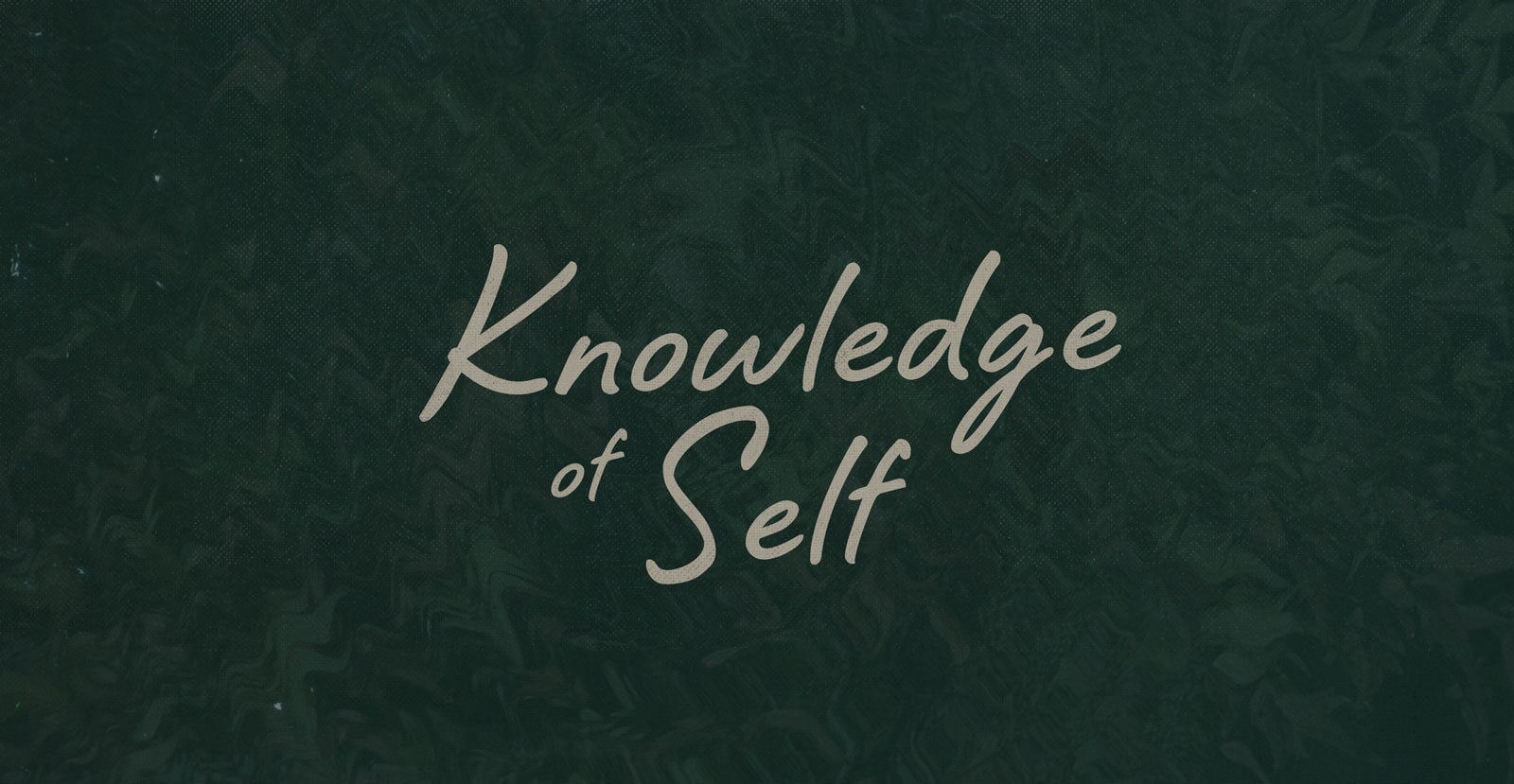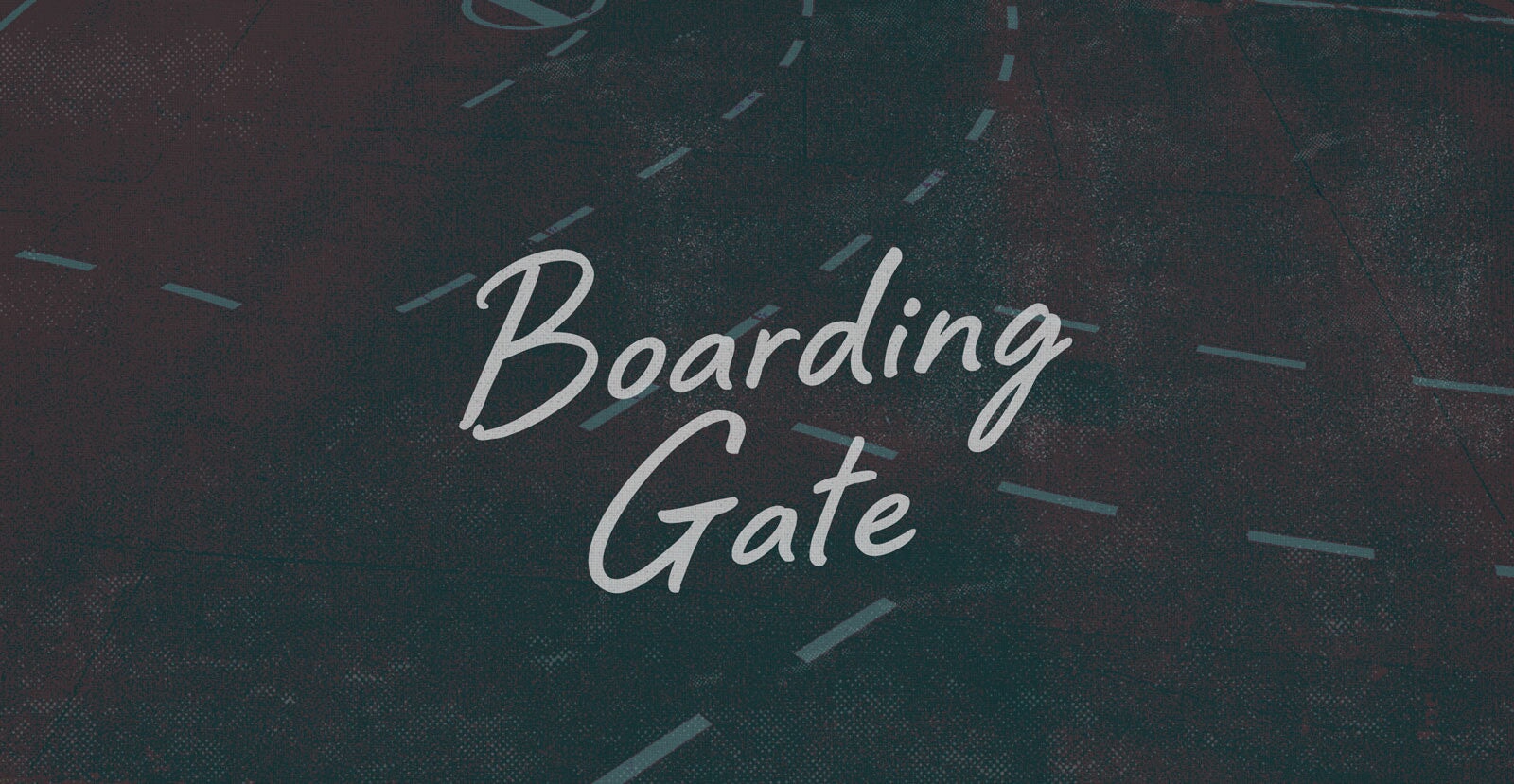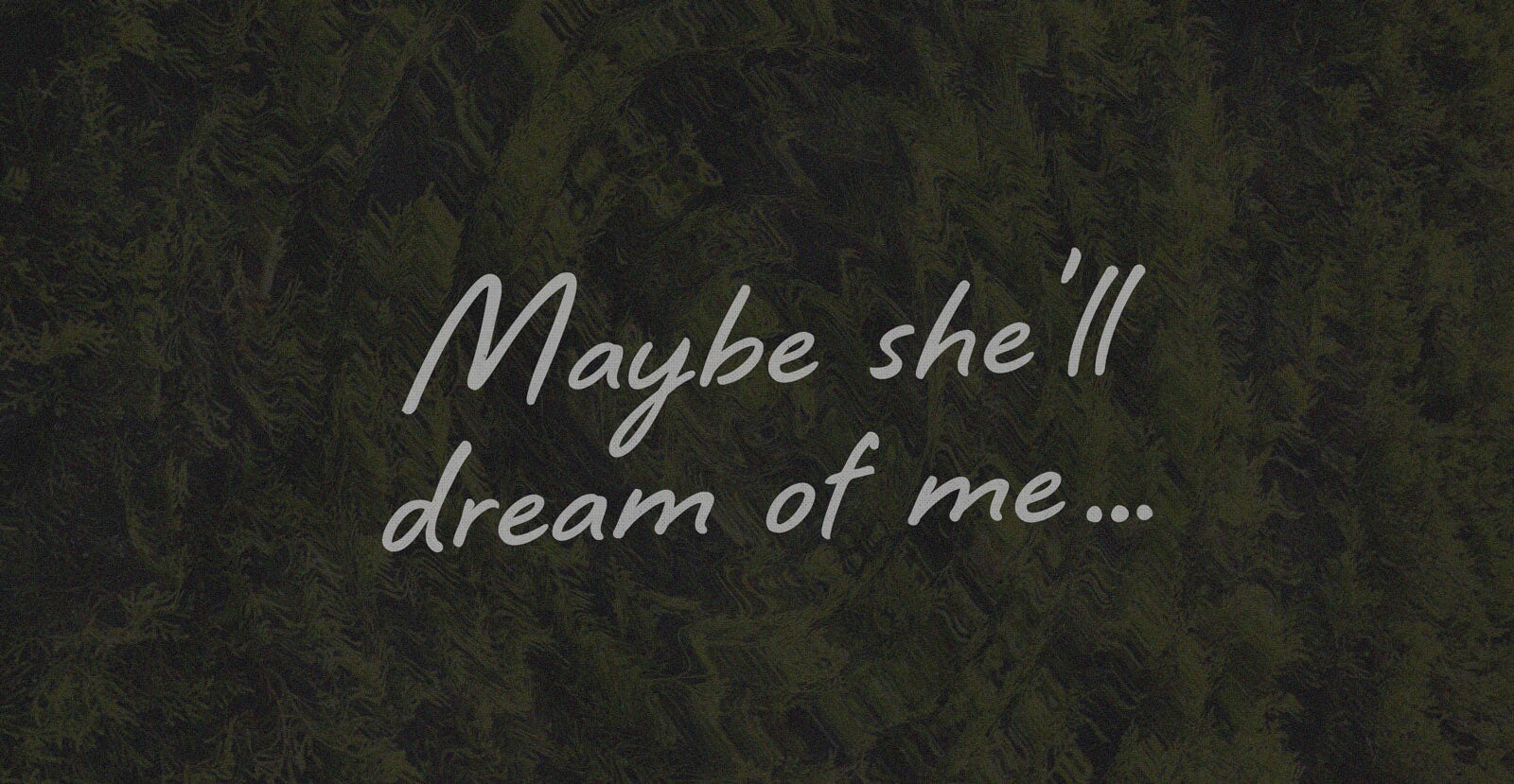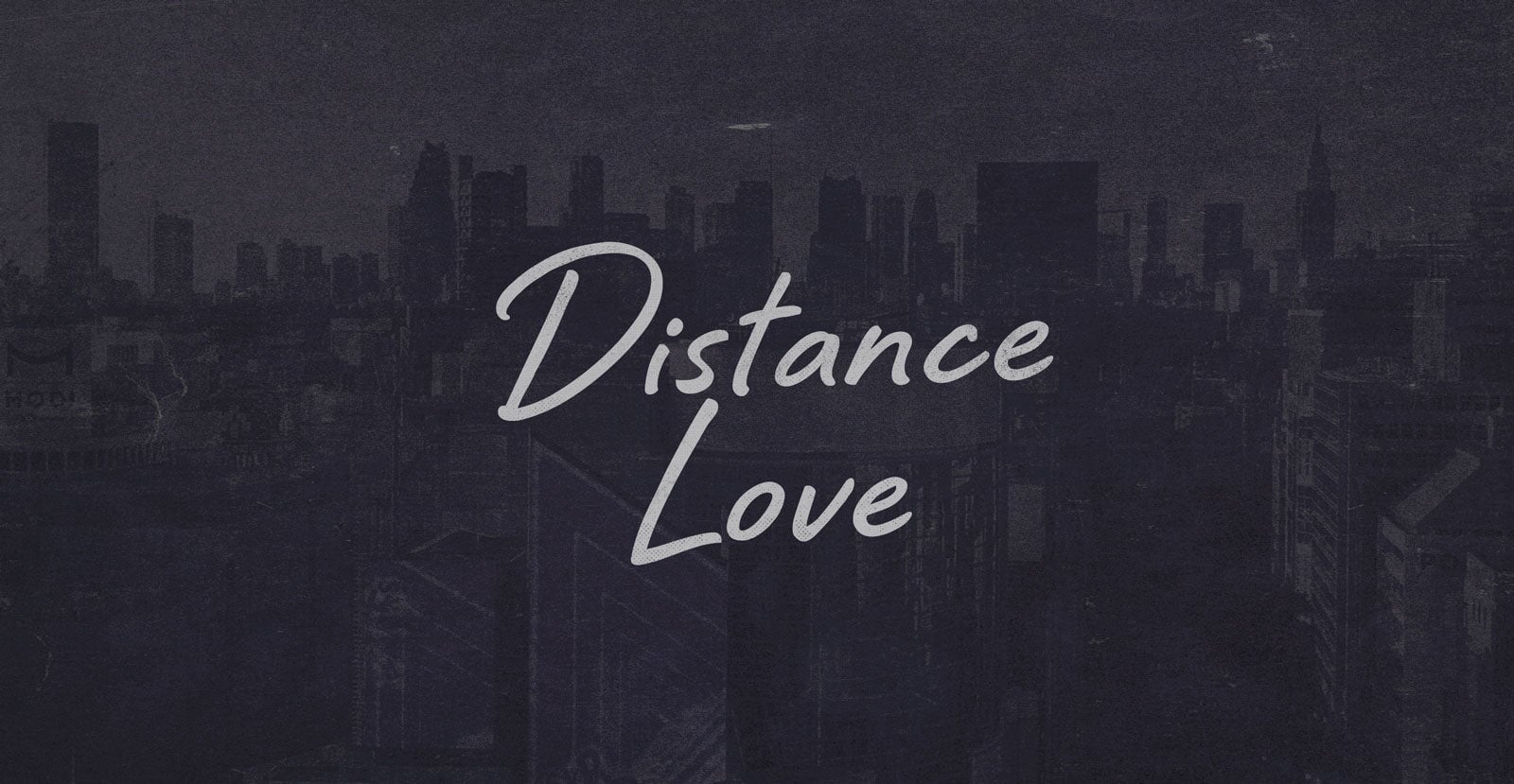
Radiant Glow
Captivate the senses. Like a shimmering sunbeam caressing the skin, a transformative experience that enhances your radiance. Step into a world of true brilliance and shine through. The essence of timeless elegance and the allure of Radiant Glow.